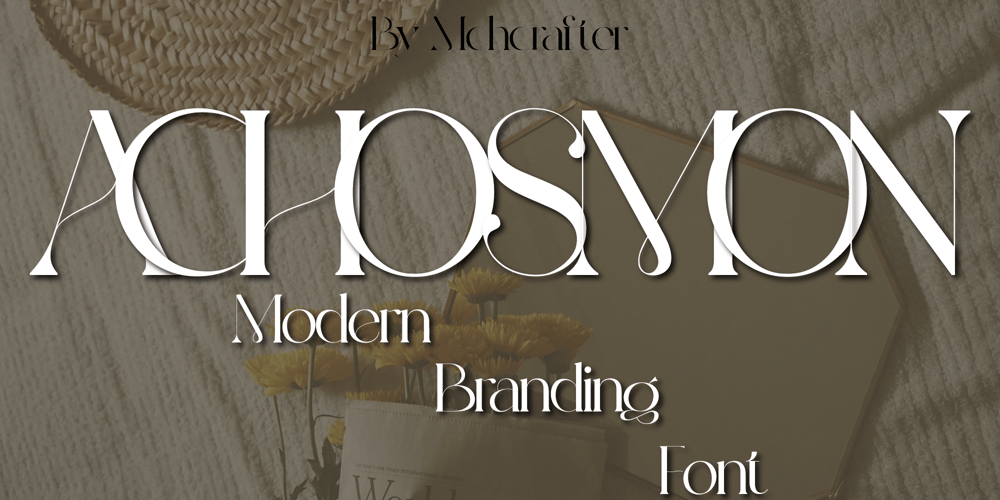
Achosmon
Achosmon font
Achosmon Font Family was designed by El Mehdi CHOUYOUKH and published by Mchcrafter. Achosmon contains 1 styles and family package options. Achosmon font is a Modern Stylistic Serif typefaceA new serif that we created specially for branding needs, with extra ligatures and alternates in a unique shape just to add value to your brand. It so nice to leverage designer or product owner that need solutions to make their design look more stylish and modern. And specially for Achosmon font, We prepared all the ligatures, and the alternates characters to help you create unlimited variations for your creative needs.Lovely Bastilla font includes: All uppercase & lowercase lettersAll numbers 0-9 & Punctuation